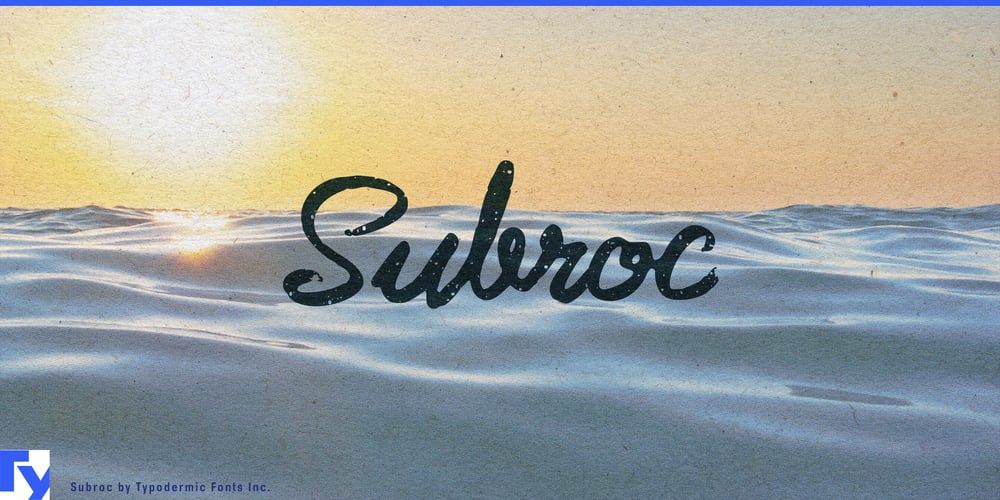
Subroc Font Family was designed by Ray Larabie and published by Typodermic. Subroc contains 1 styles and family package options. Subroc is more than a typeface—it’s a time machine, transporting your designs to an era of elegance and unspoken sentiment. This joined-marker script captures the essence of handwritten correspondence, where every curve and connection tells a story of its own.With its debonair charm, Subroc breathes life into your words, transforming them into whispers from the past. The typeface’s custom letter pairs, activated through ligature support, create a seamless flow that mimics the natural rhythm of handwriting. It’s as if each word is carefully penned by a steady hand, infused with intention and emotion. What sets Subroc apart is its subtle, granular texture—a design choice that adds depth and character to every stroke. This gritty finish evokes the tactile quality of ink on aged paper, inviting viewers to not just read, but feel the weight of history in each letter. It’s this attention to detail that makes Subroc more than a font; it’s a conduit for nostalgia, capable of stirring memories and emotions long forgotten.Subroc’s versatility extends beyond its aesthetic appeal. With support for an extensive range of Latin-based European languages, it speaks to a global audience, carrying your message across borders with the same emotive power. From the sun-drenched coasts of the Mediterranean to the frost-kissed fjords of Scandinavia, Subroc communicates with a universal language of elegance and sentimentality. Choose Subroc when your design calls for more than just words—when you need to convey the intangible, the emotional, the deeply personal. It’s perfect for wedding invitations that whisper of timeless love, for brand identities that speak of heritage and craftsmanship, or for editorial designs that transport readers to another time and place.In a digital age of instant communication, Subroc stands as a testament to the enduring power of the written word. It invites designers to slow down, to consider each curve and flourish, and to create messages that resonate on a deeper level. With Subroc, your designs don’t just communicate—they evoke, they inspire, they endure.